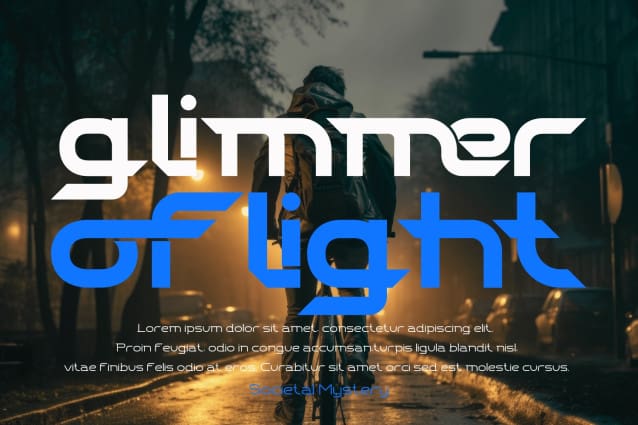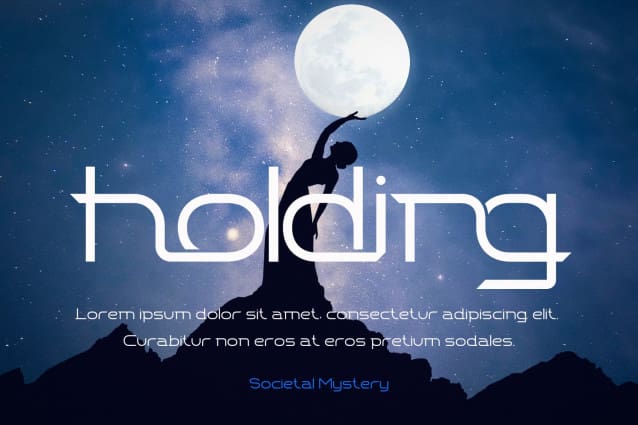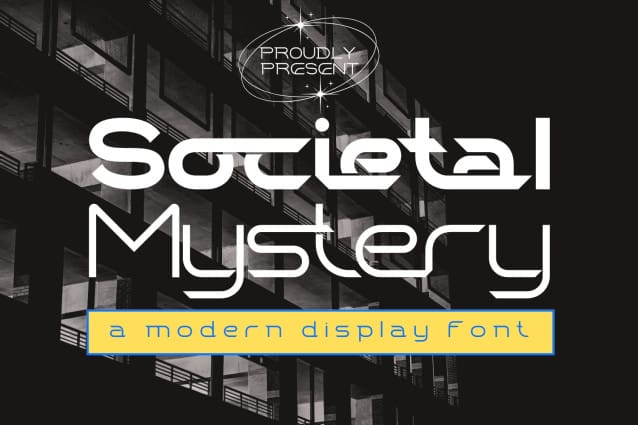
Societal Mystery Font
Societal Mystery Font redefines elegance with its modern sans serif style and dynamic blur effects. Crafted for sophistication and contemporary appeal, it stands out in various design projects. Ideal for creating attention-grabbing headlines, logos, and various graphic designs, its bold and confident look enhances the visual appeal of any project.
Societal Mystery was built with OpenType features and includes 100 ligatures, alternate, numbers, punctuation, and it also supports other languages.